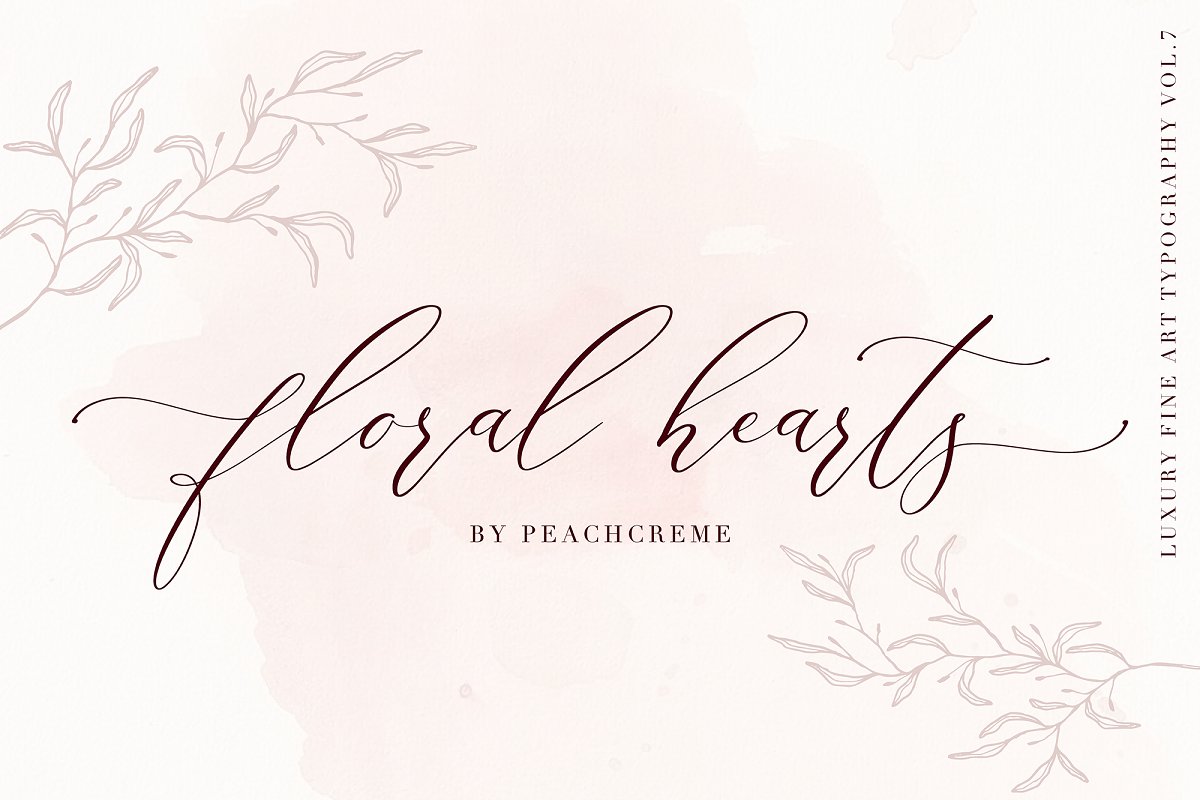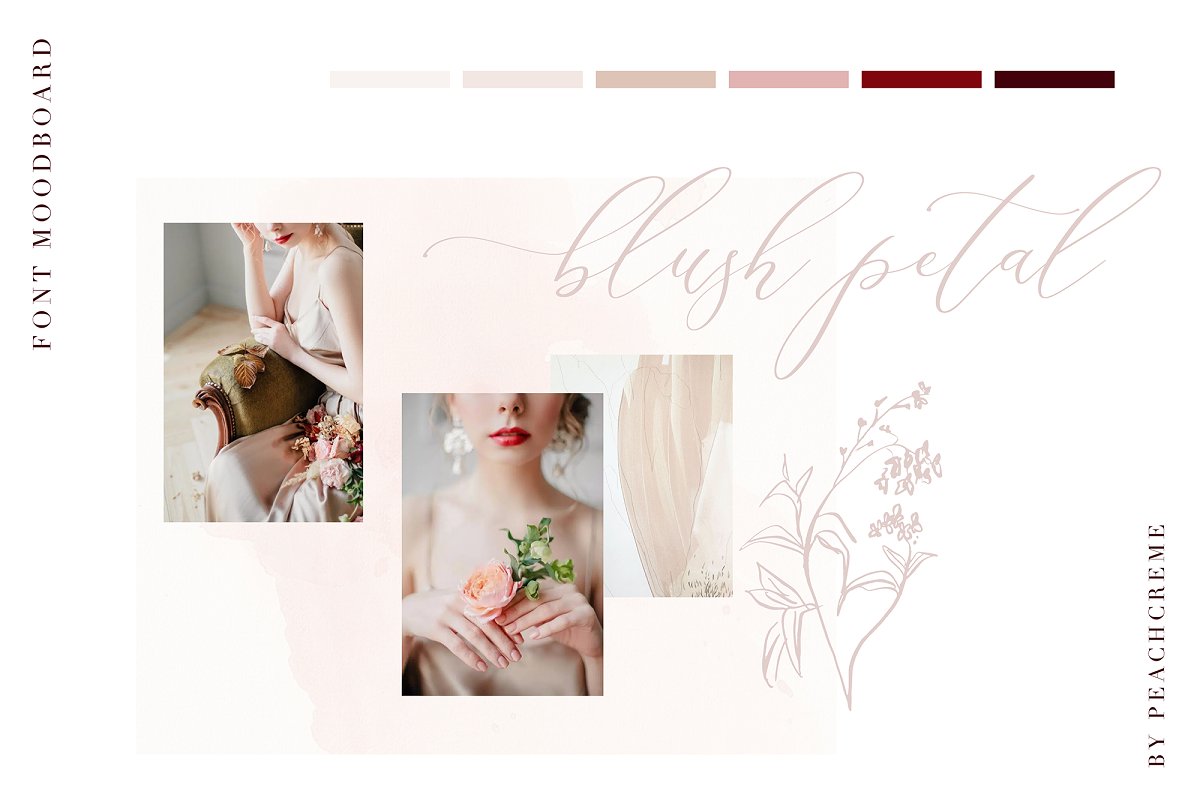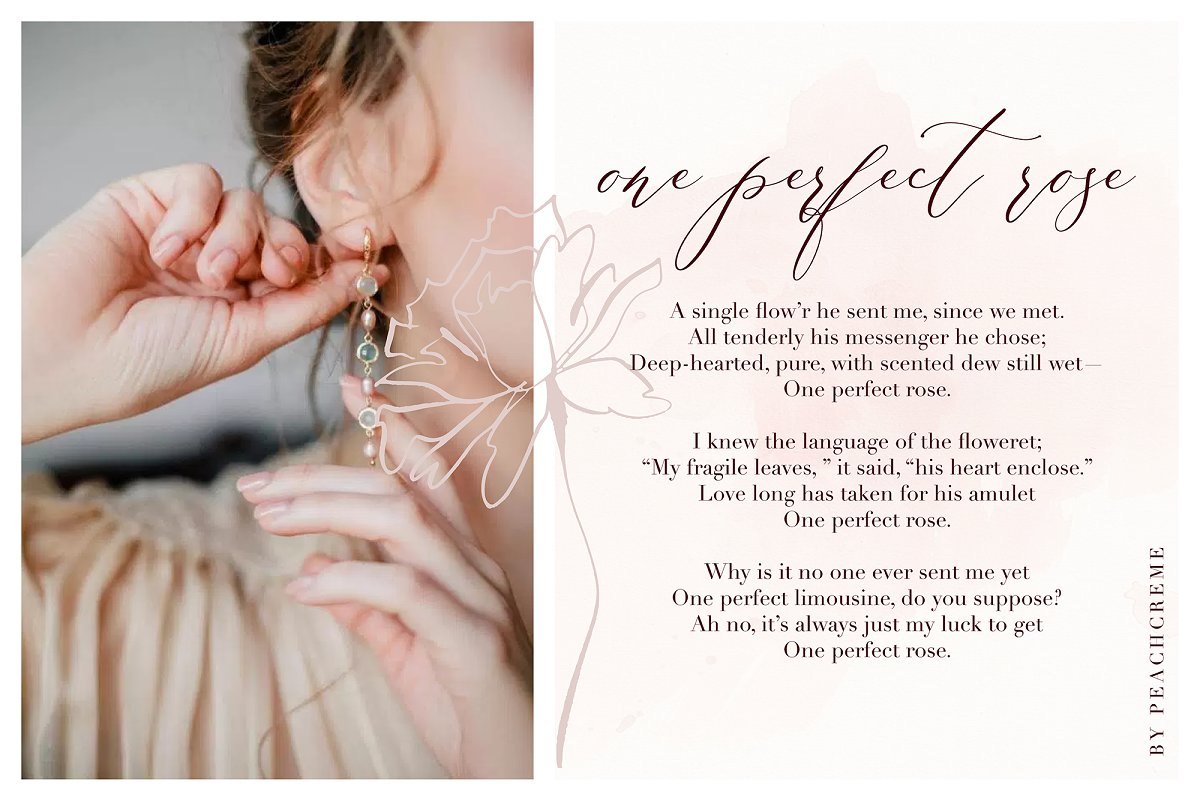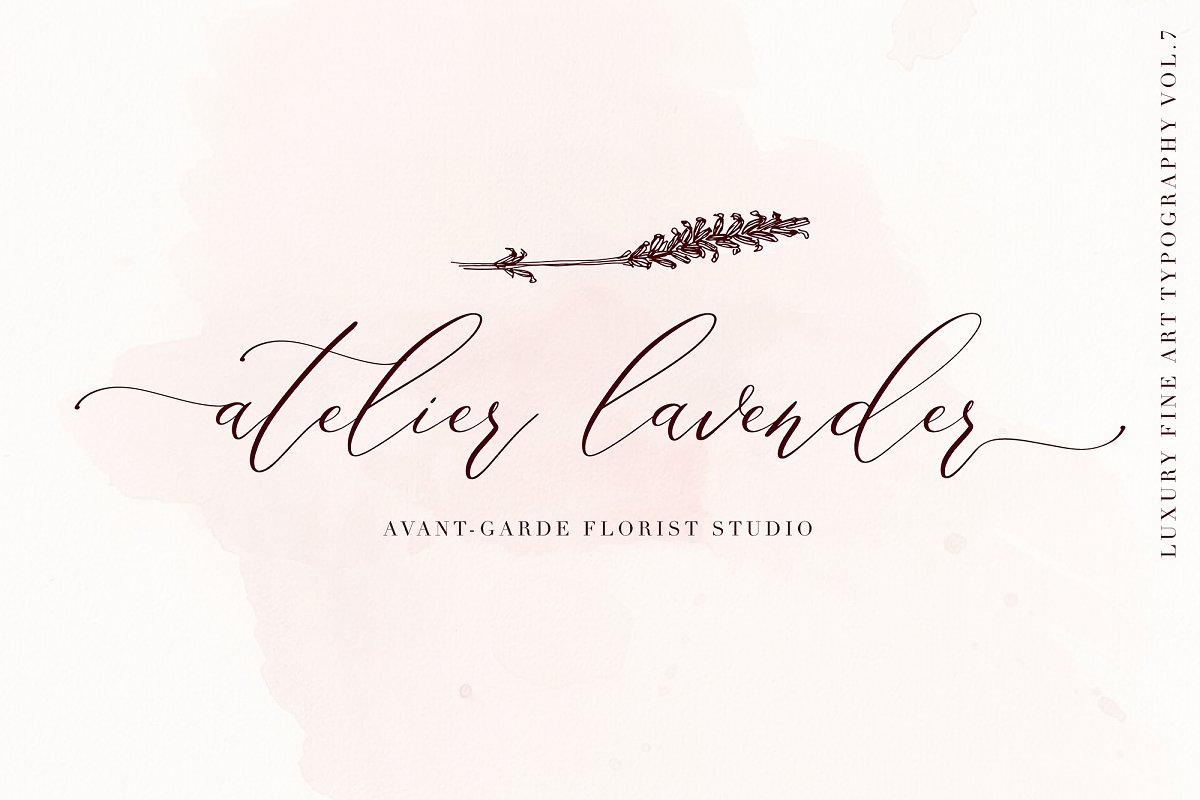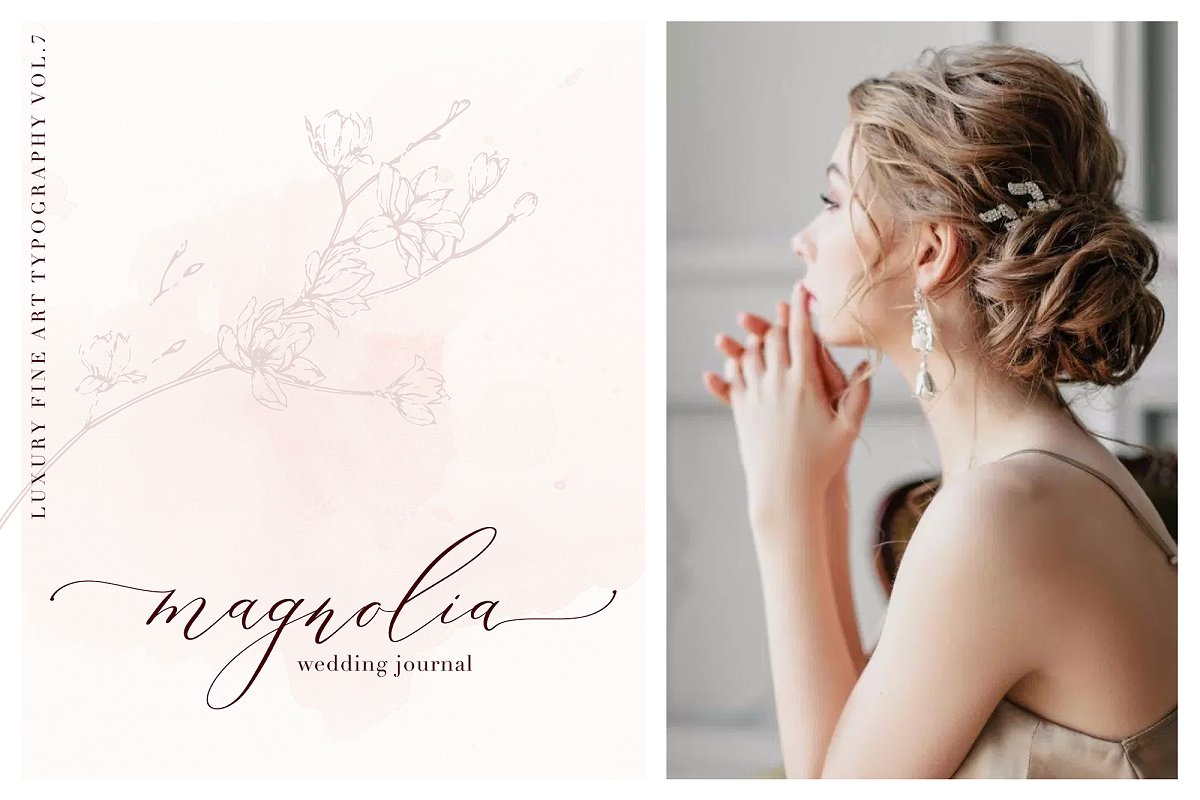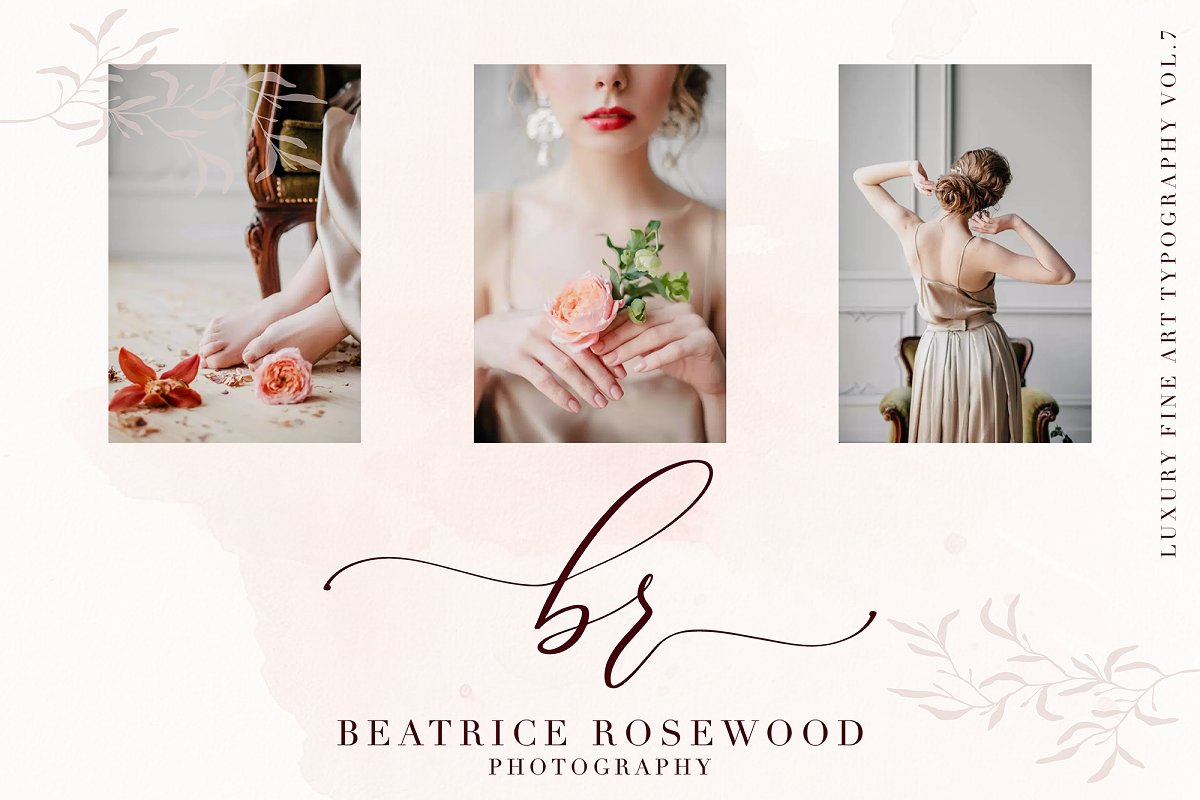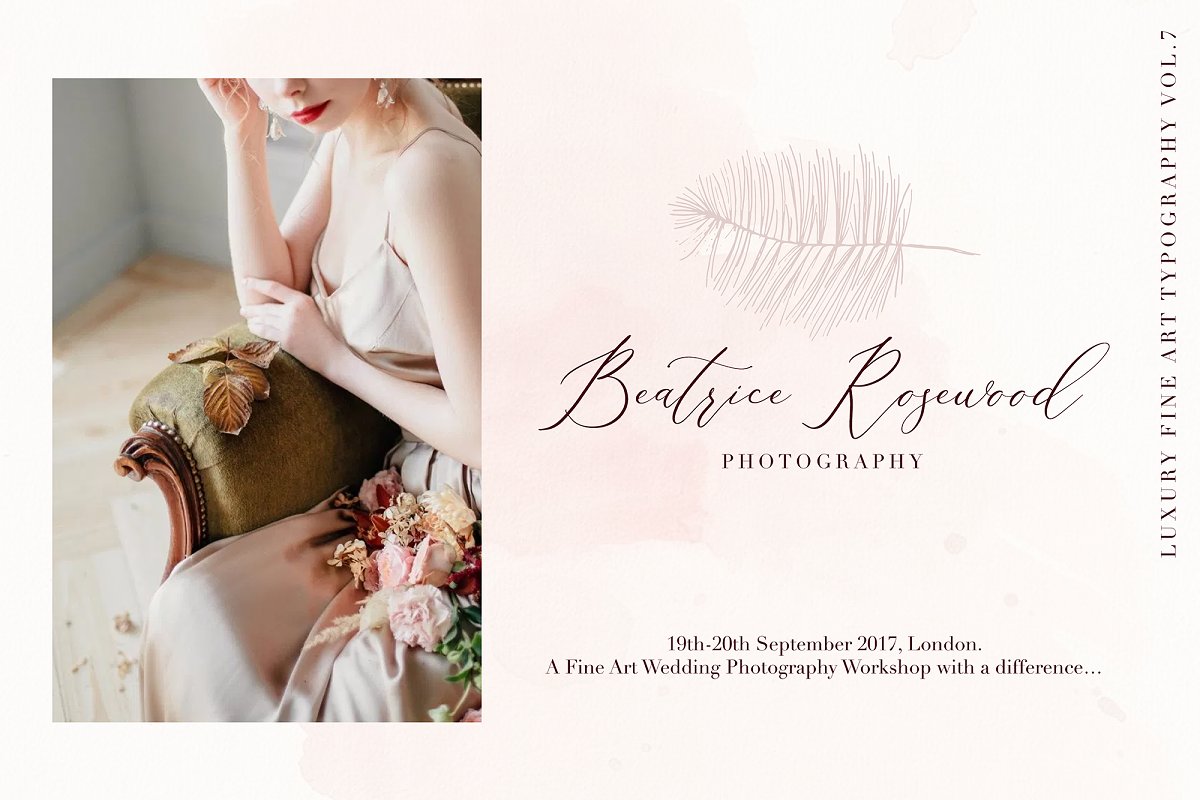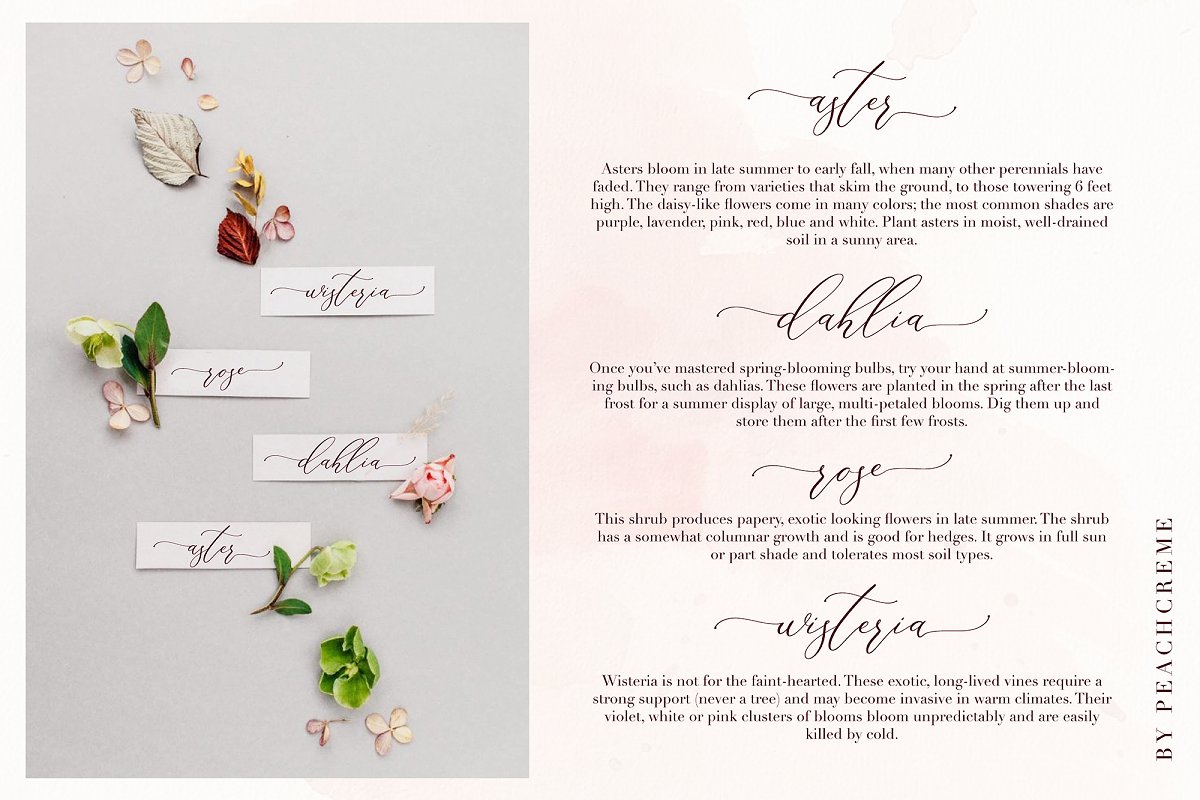
About the Floral Hearts Luxury Script Font
LUXURY FINE ART TYPOGRAPHY VOL, 7Do you feel it? It is spring love with floral scents, , , It inspired me to create elegant script font , Floral Hearts is a crème de la crème modern calligraphy font with contemporary, sophisticated accents, It is perfect for branding, wedding invites and cards, Floral Hearts includes full set of gorgeous uppercase and lowercase letters, numerals, punctuation and ligatures
All lowercase letters include beautiful beginning and ending swashes, Also, includes following multilingual symbols: ßÀàÁáÂâÃãÄäÅåĀāĂ㥹ÇçĆćĈĉĊċČčĎďĐđÈèÉéÊêËëĒēĔĕĖėĘęĚěĜĝĞğĠġĢģĤĥĦħÌìÍíÎîÏïĨĩĪīĬĭĮįĴĵȷĶķĹĺĻĽľĿŀŁłÑñŃńŅņŇňʼnŊŋÒòÓóÔôÕõÖöŌōŎŏŐőØøǾǿŒœŔŕŕŖŗŘřŚśŜŝŞşŠšŢţŤťŦŧÙùÚúÛûÜüŨũŪūŬŭŮůŰűŲųŴŵẀẁẂẃẄẅÝýŶŷŸÿỲỳŹźŻżŽžWhat you get, darling?You will get:Floral Hearts OTFFloral Hearts TTFFloral Hearts WOFFIn order to use the beautiful swashes, you need a program that supports OpenType features such as Adobe Illustrator CS, Adobe Photoshop CC, Adobe Indesign and Corel Draw
The swashes are called alternative style, For example, letter a with beginning and ending swashes are alternative style for a, In order to access you need them you need to open Glyphs panel, Photoshop has a glyph panel where you can find alternates and ligaturesSelect the Floral Hearts font and go to Window Glyphs and double-click on the glyph you want to use